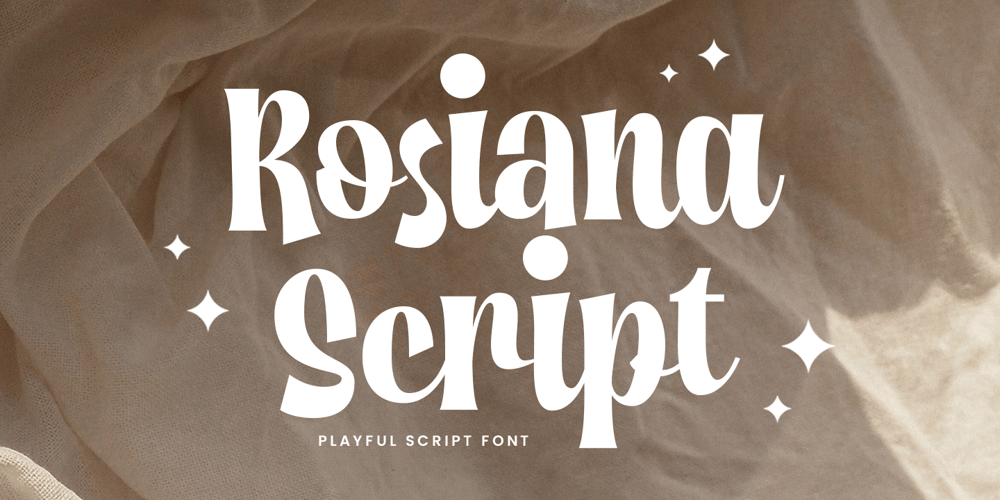
Rosiana Script Font Family was designed by Ahmad Ramzi Fahruddin and published by Arterfak Project. Rosiana Script contains 1 styles and family package options. Say hello to “Rosiana Script”. This font is bold, fun, and cheerful which visualizes slightly bouncy and elegant looks that are sure to bring your design projects to life.This font is designed with a fun, exciting, and dynamic shape, so it is perfect for use on headlines, storefronts, flyers, stickers, logotypes, storefronts, merchandise, quotes, and more!This font is the perfect choice for you. With so many unique options available, such as stylistic alternates, ligatures & multilingual support. This is the right style that will give your project a professional look and feel.Font featured : Uppercase Lowercase Numbers & symbols Stylistic alternates Stylistic set Ligatures Accented characters Thanks for supporting us!